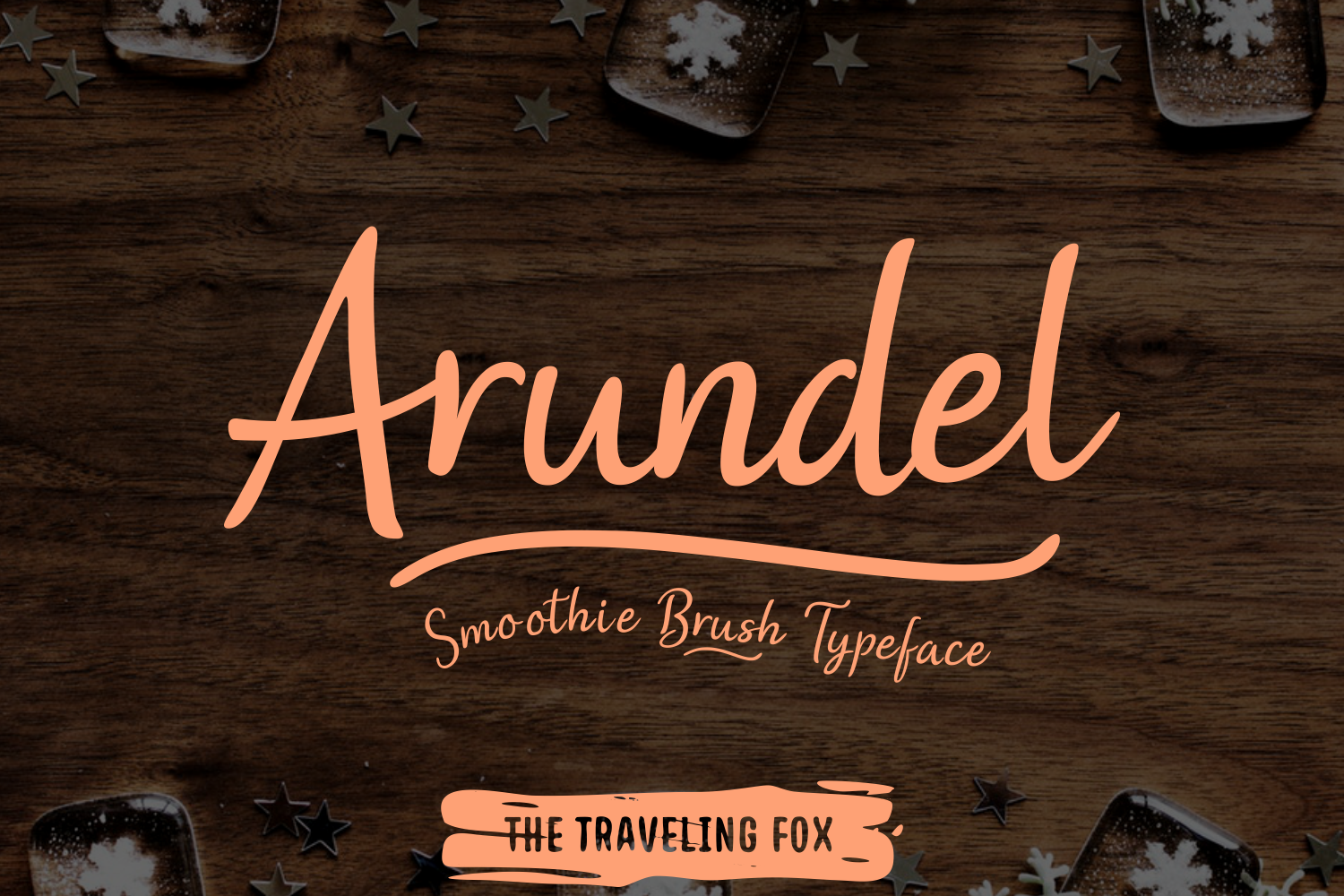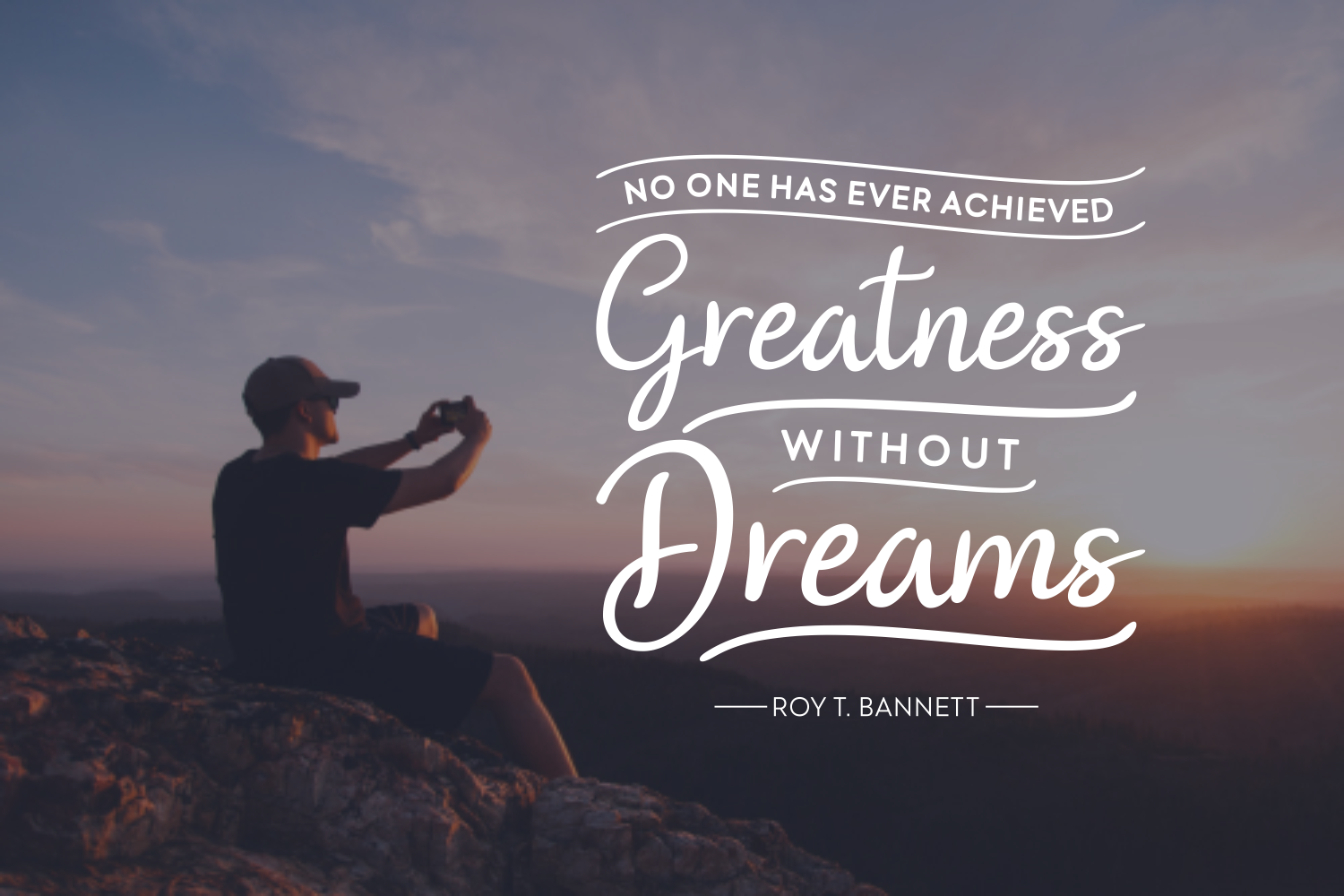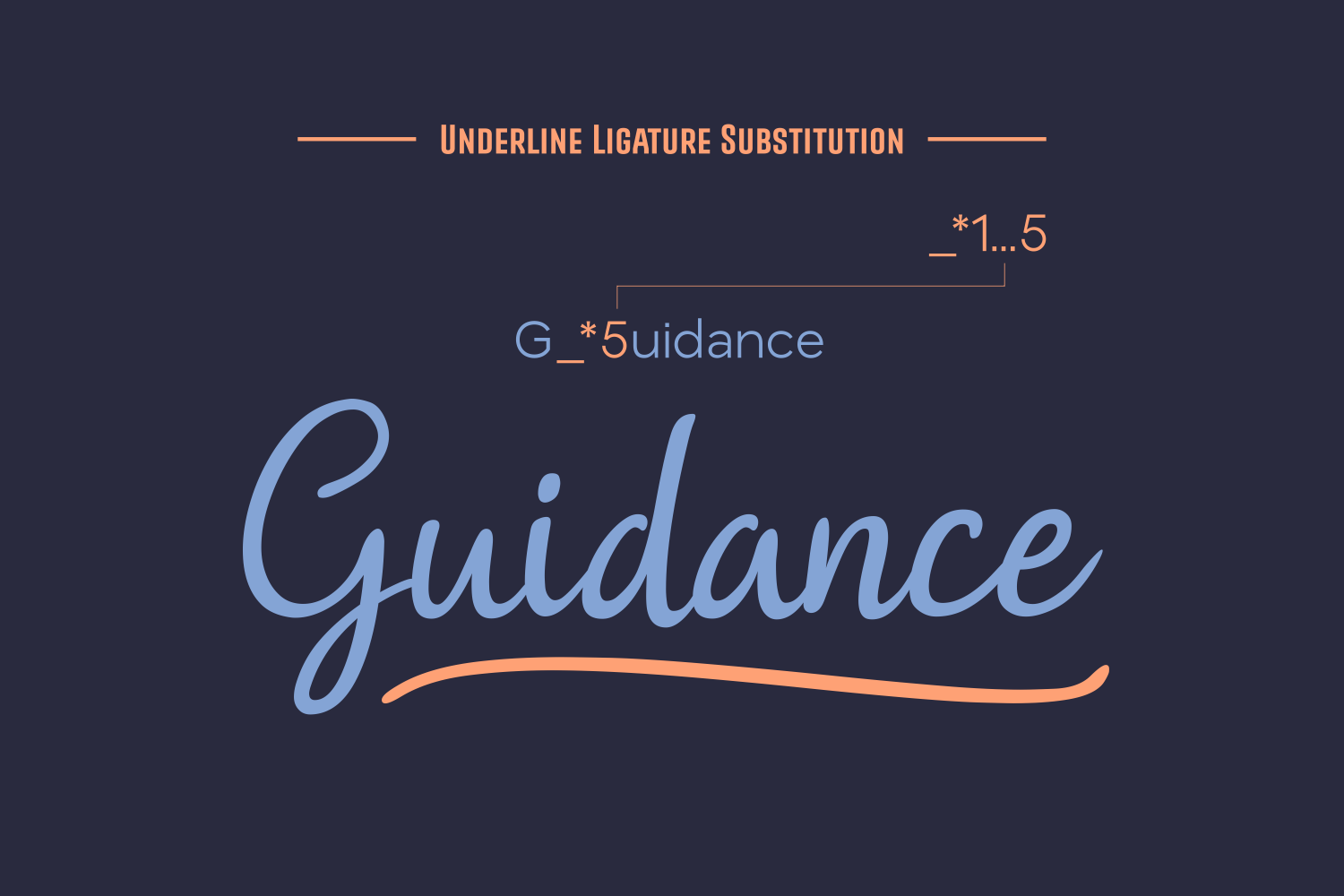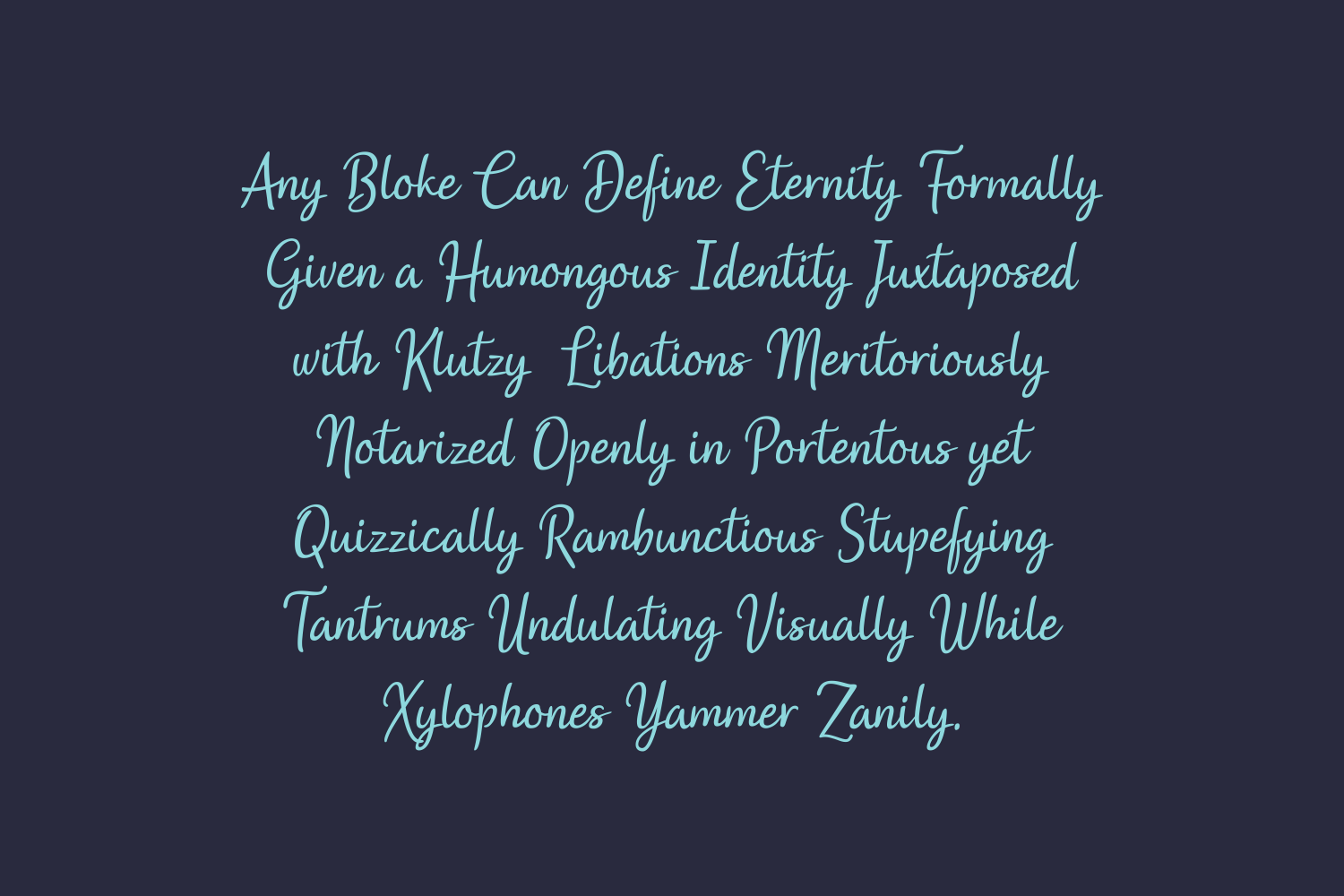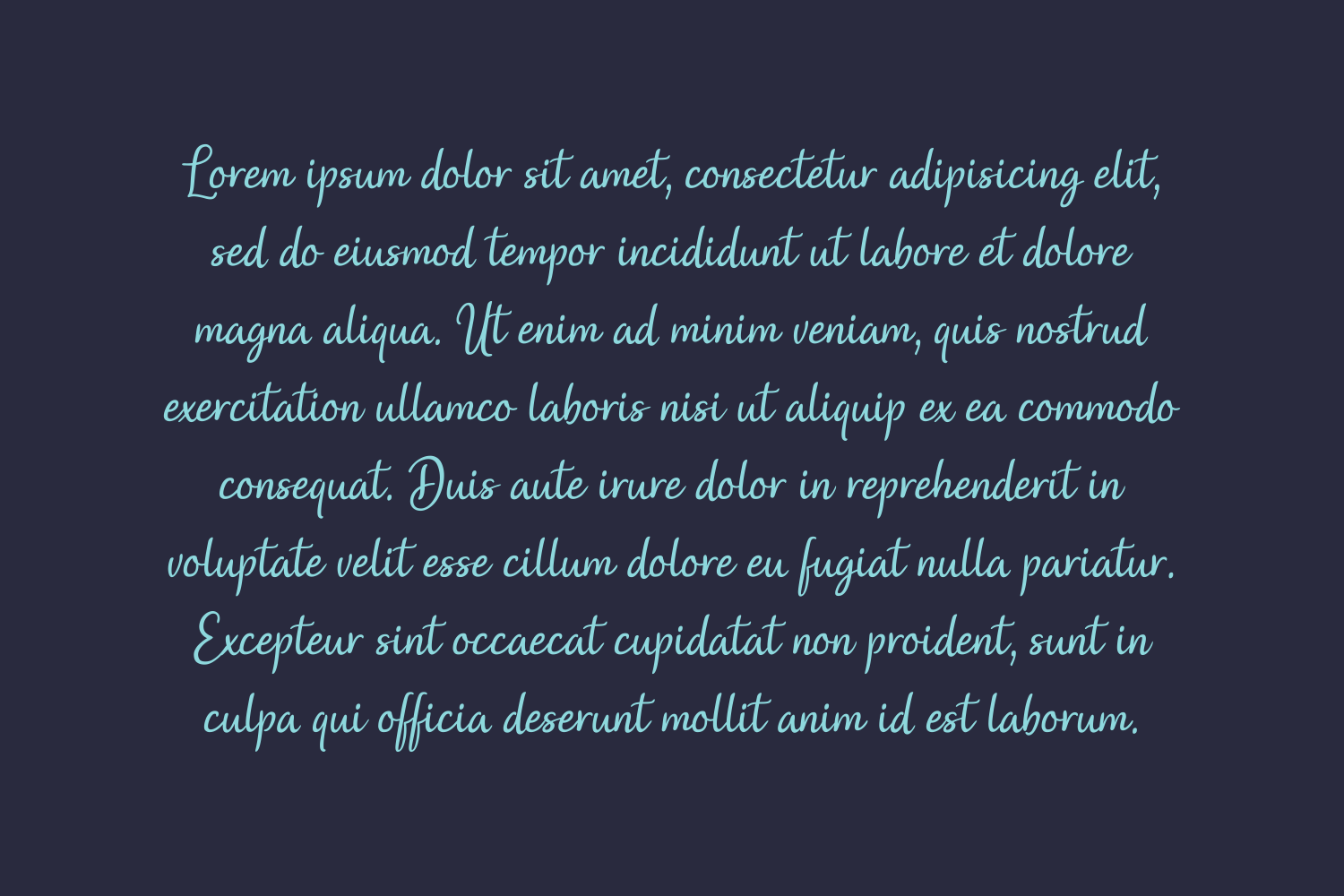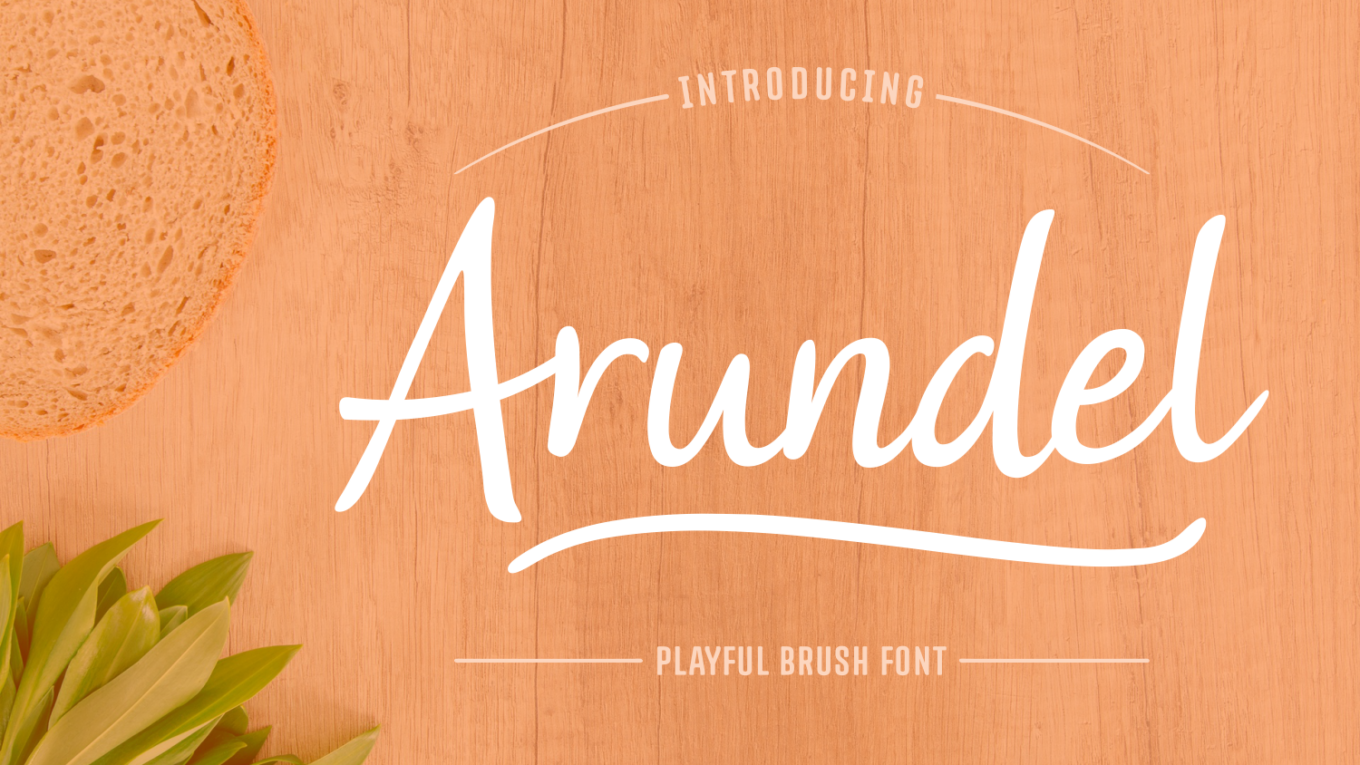
Discover the Beauty of Arundel Font: A Free and Versatile Script Font
Are you a designer or crafter looking for a font that can add a touch of elegance and sophistication to your projects? Look no further than Arundel Font, a beautifully designed handwritten script font that is both casual and freeing. In this article, we’ll explore the features and benefits of Arundel Font, and show you how to download and use it in your designs.
What is Arundel Font?
Arundel Font is a wonderfully casual and freeing script font that is suitable for a large range of styles and projects. Its unique and elegant design makes it perfect for adding a touch of personality to your designs, from wedding invitations and greeting cards to branding and advertising materials.
Key Features of Arundel Font
- Handwritten script font: Arundel Font is a beautifully designed handwritten script font that adds a personal touch to your designs.
- Casual and freeing: The font’s casual and freeing design makes it perfect for a wide range of projects, from formal to informal.
- Pairs nicely with many other fonts: Arundel Font pairs well with many other fonts, making it easy to use in combination with other typography.
- Suitable for display or headline use: The font works fantastically as a display or headline to your designs and projects, making it perfect for adding emphasis and visual interest.
Benefits of Using Arundel Font
So why choose Arundel Font for your designs? Here are just a few benefits of using this beautiful script font:
- Adds a personal touch: Arundel Font’s handwritten design adds a personal touch to your designs, making them more relatable and engaging.
- Increases versatility: The font’s casual and freeing design makes it suitable for a wide range of projects and styles.
- Enhances visual interest: Arundel Font’s unique and elegant design adds visual interest to your designs, making them more attention-grabbing and effective.
Tips for Using Arundel Font
Here are a few tips for using Arundel Font in your designs:
- Use it as a headline or display font: Arundel Font works fantastically as a headline or display font, making it perfect for adding emphasis and visual interest to your designs.
- Pair it with other fonts: Arundel Font pairs well with many other fonts, so don’t be afraid to experiment with different combinations.
- Use it for body text: While Arundel Font is perfect for headlines and displays, it can also be used for body text to add a personal touch to your designs.
In conclusion, Arundel Font is a beautifully designed handwritten script font that is both casual and freeing. Its unique and elegant design makes it perfect for adding a touch of personality to your designs, from wedding invitations and greeting cards to branding and advertising materials. With its versatility, elegance, and ease of use, Arundel Font is a must-have for designers and crafters looking to add a touch of sophistication to their projects.